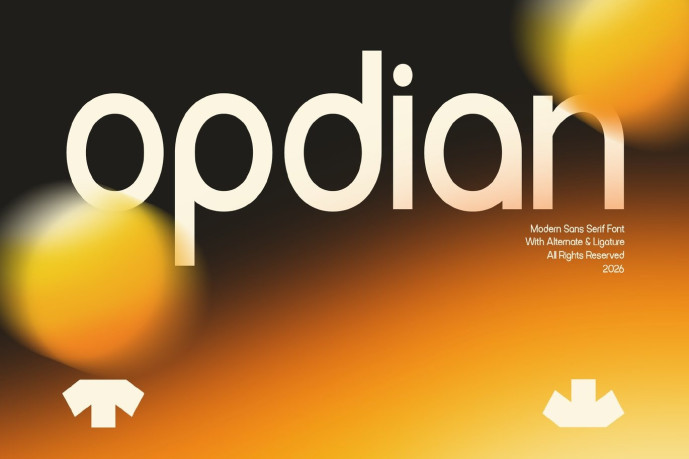
Opdian – Modern Sans Serif Font
Modern Sans Serif Font – Opdian
Opdian is a modern sans serif font crafted for designers who appreciate clarity, balance, and contemporary elegance. With its clean geometric construction, smooth curves, and refined proportions, Opdian delivers a sophisticated visual presence that feels both minimal and memorable. Every letter is carefully designed to create a seamless reading experience while maintaining a distinctive modern character.
Who Should Use Opdian? Opdian is ideal for designers, branding agencies, startups, creative studios, and businesses looking for a modern sans serif font with exceptional readability and a refined contemporary aesthetic. It is especially suited for projects that require clean typography, versatile styling, and a professional visual identity.